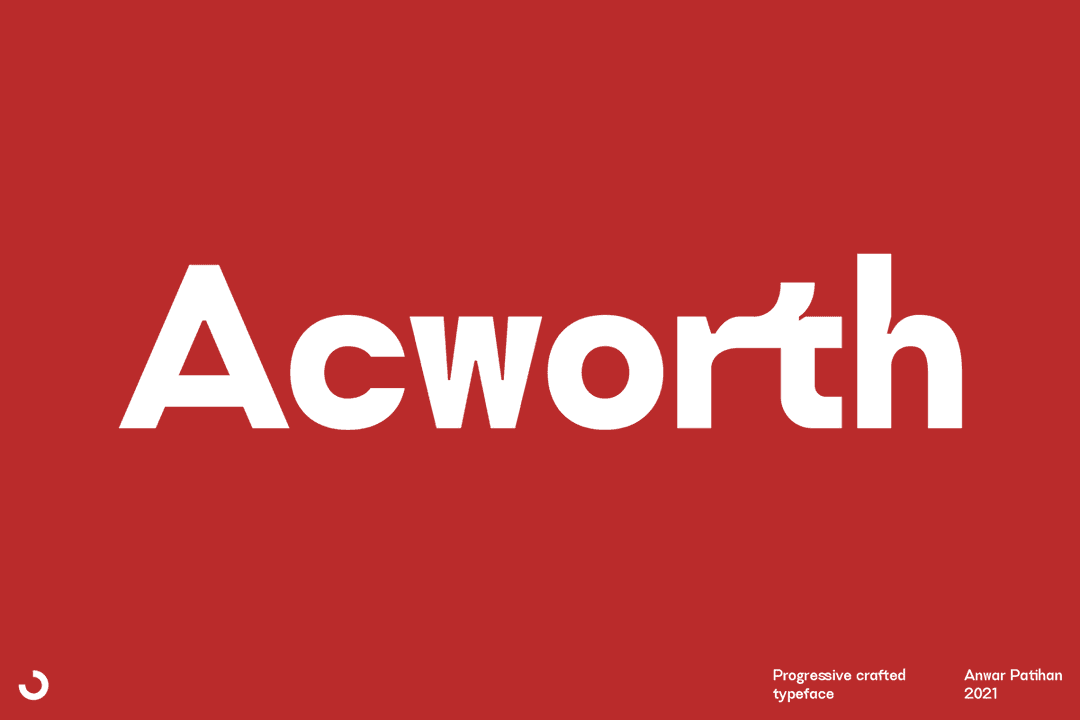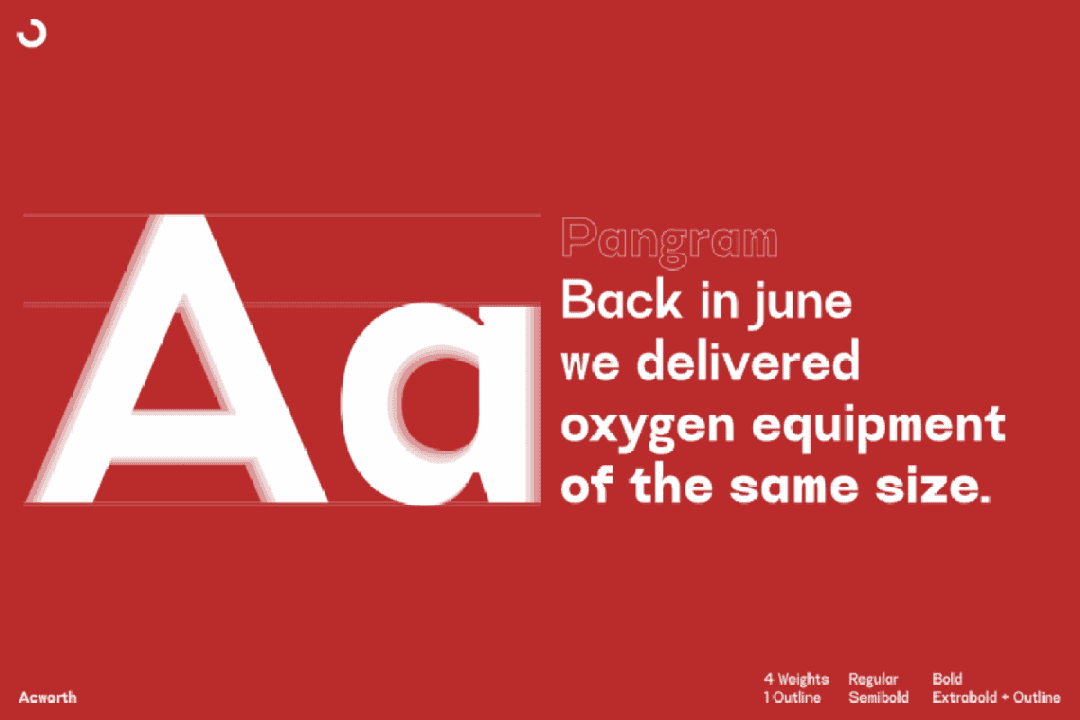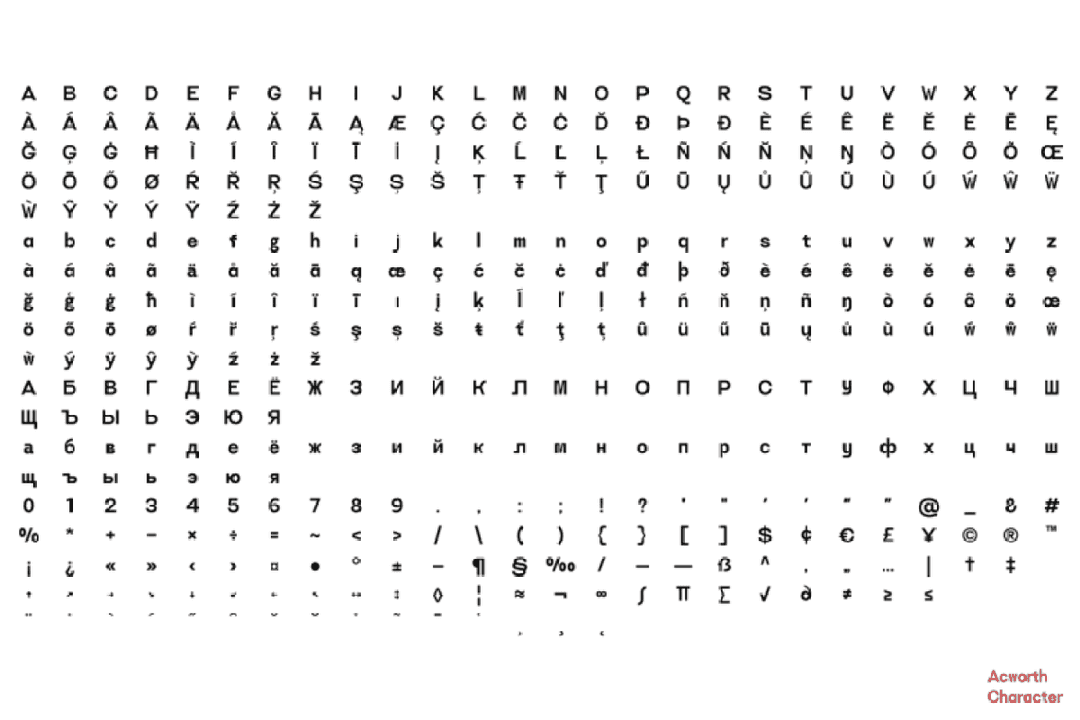
Acworth is a new geometric font based on industrial design and power. It is driven by technology and the emergence of new culture and is a force that is home grown. The characters of the Acworth font contain an ink trap making the font very usable and is a versatile display font that is ideal for graphic design, editorial web design for